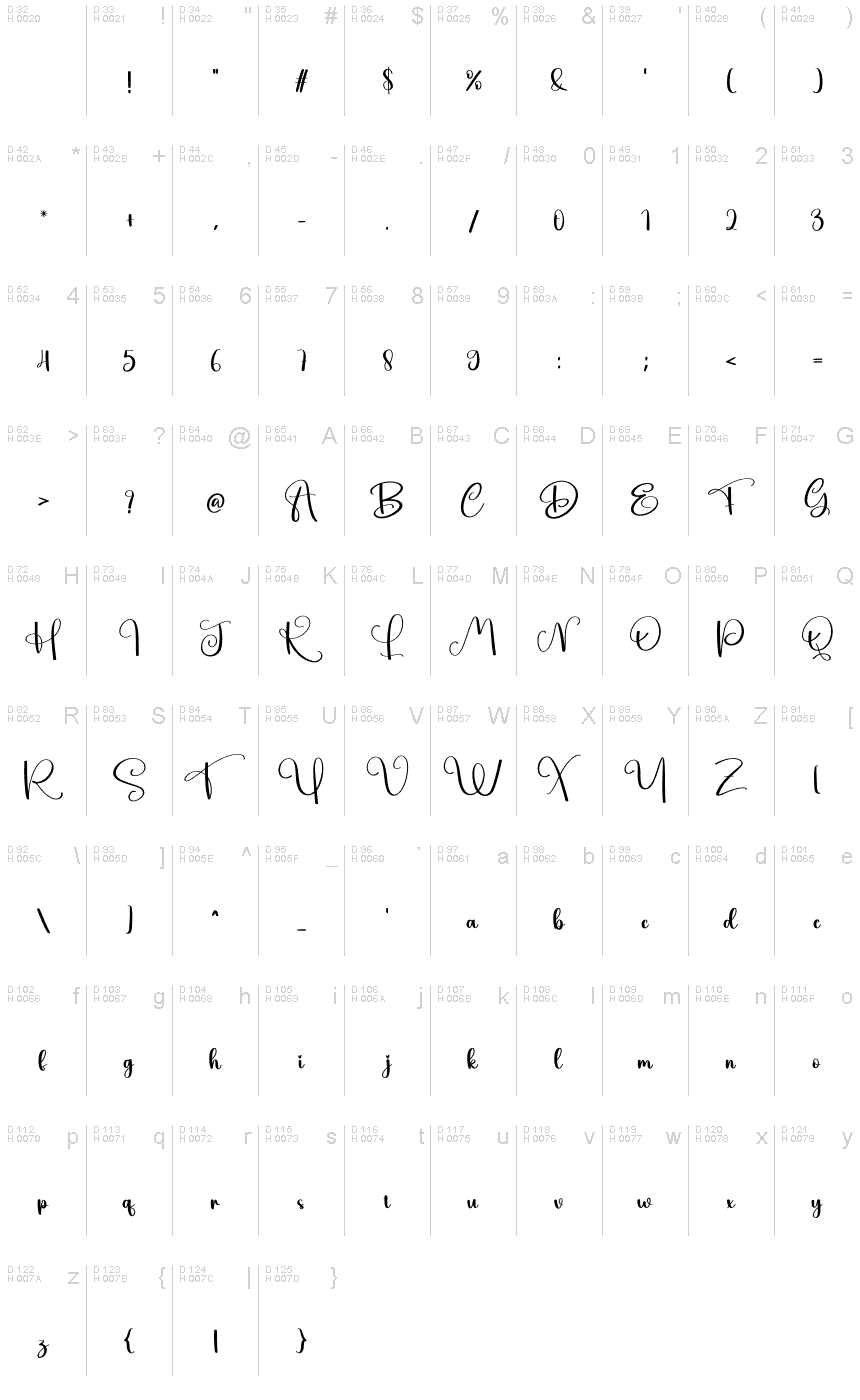
Hey Summer
Hey Summer, a mesmerizing calligraphy font designed by scratchones, adds elegance and flair to any project. Its semi-light weight allows for a delicate balance between sophistication and playfulness. Perfect for wedding invitations, greeting cards, or branding materials, Hey Summer will effortlessly infuse your designs with a touch of romance and whimsy. Whether you're crafting a vintage-inspired logo or creating stunning typography artwork, this graceful font will make your creations stand out with its unique charm. Let Hey Summer transport your audience to a world of warmth and joy through its graceful strokes and captivating curves.
the latest style letters are perfect for wall displays, wedding invitations, social media post logos, advertisements, product packaging, product designs, labels, photography, watermarks, invitations, stationery,
and any project that requires taste handwriting.